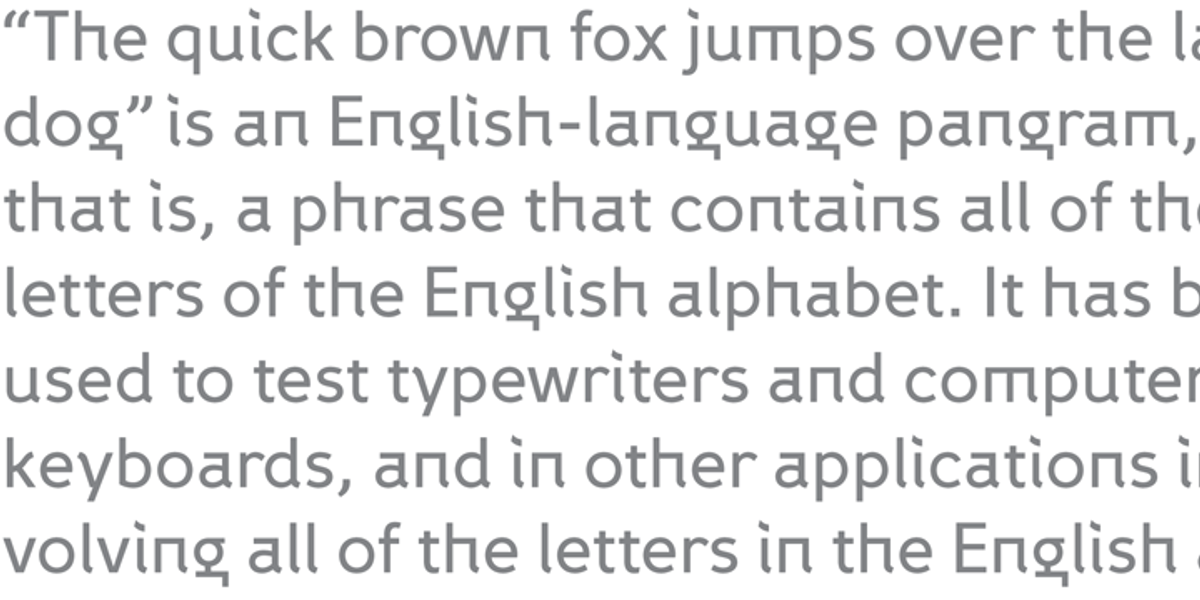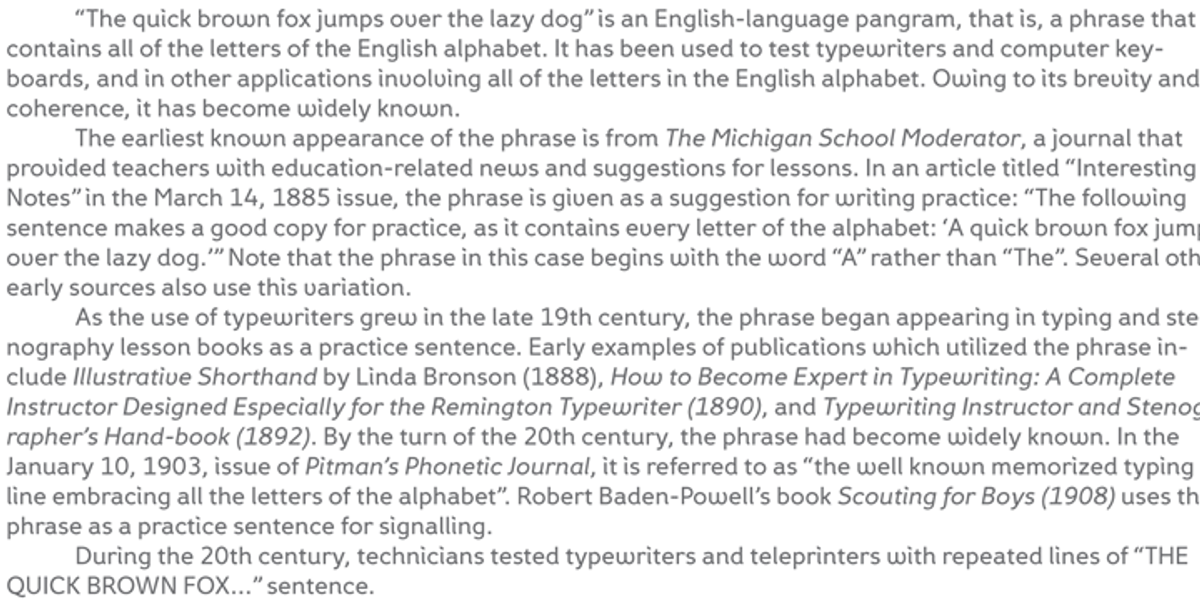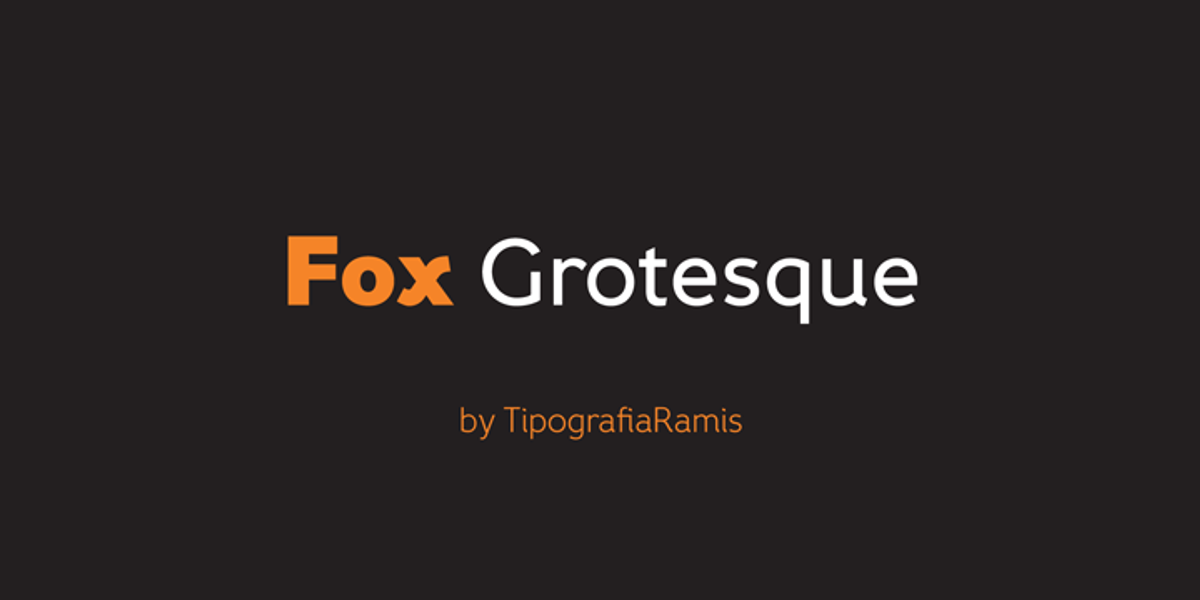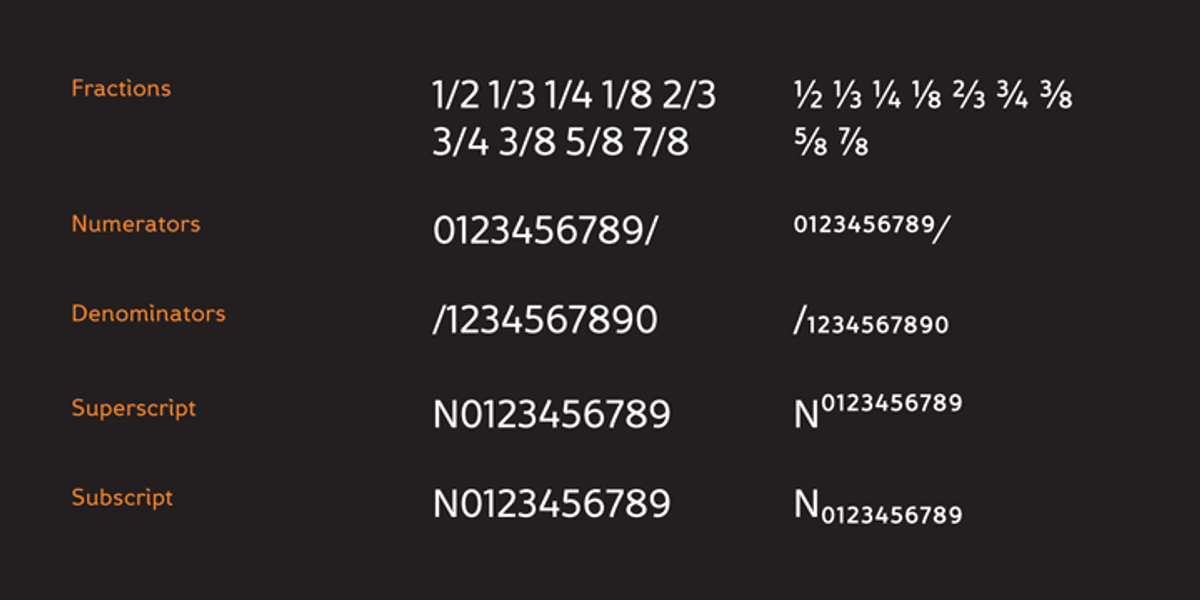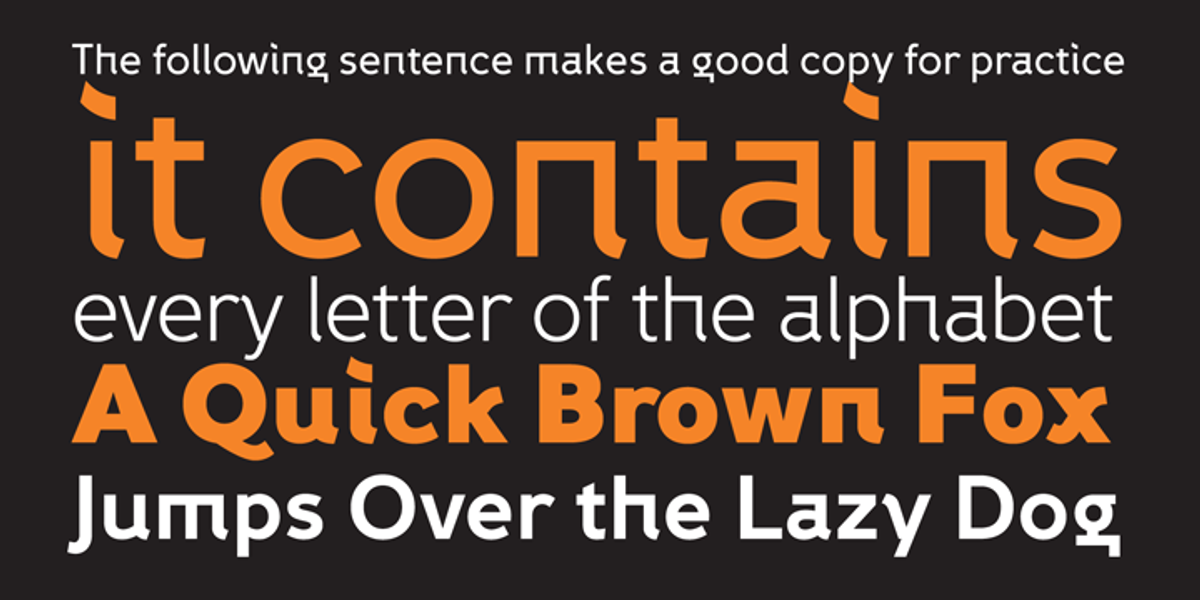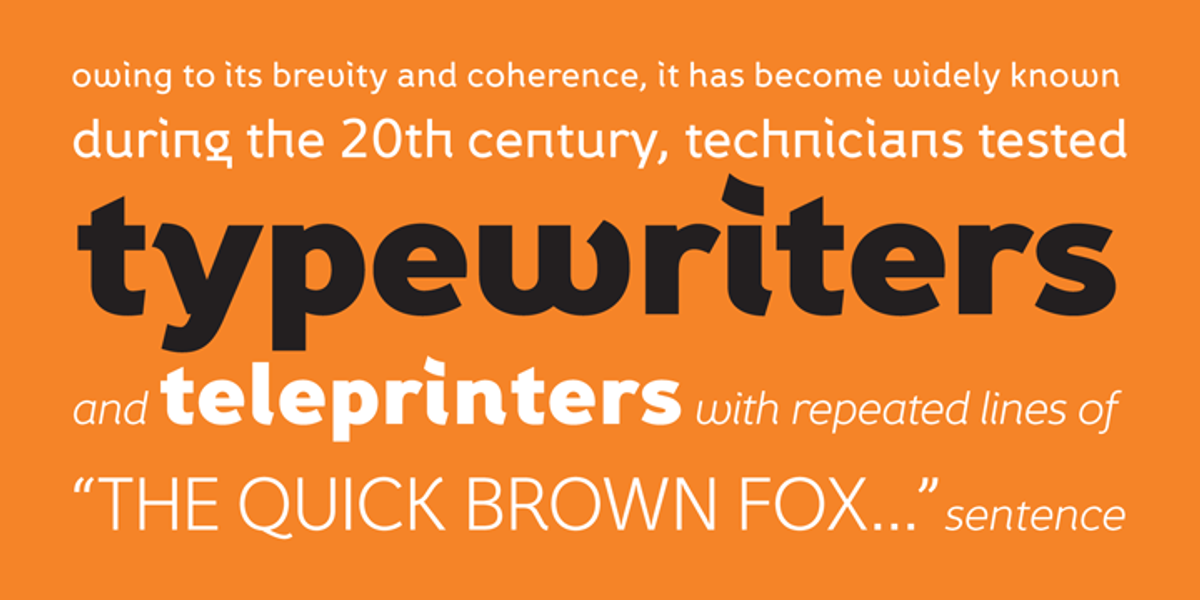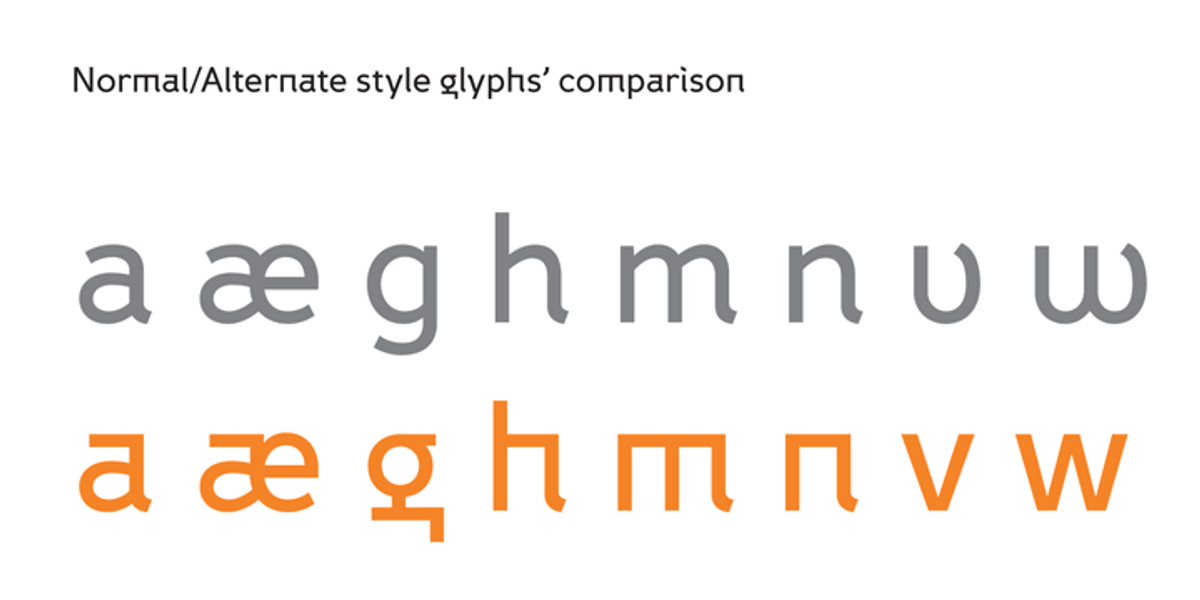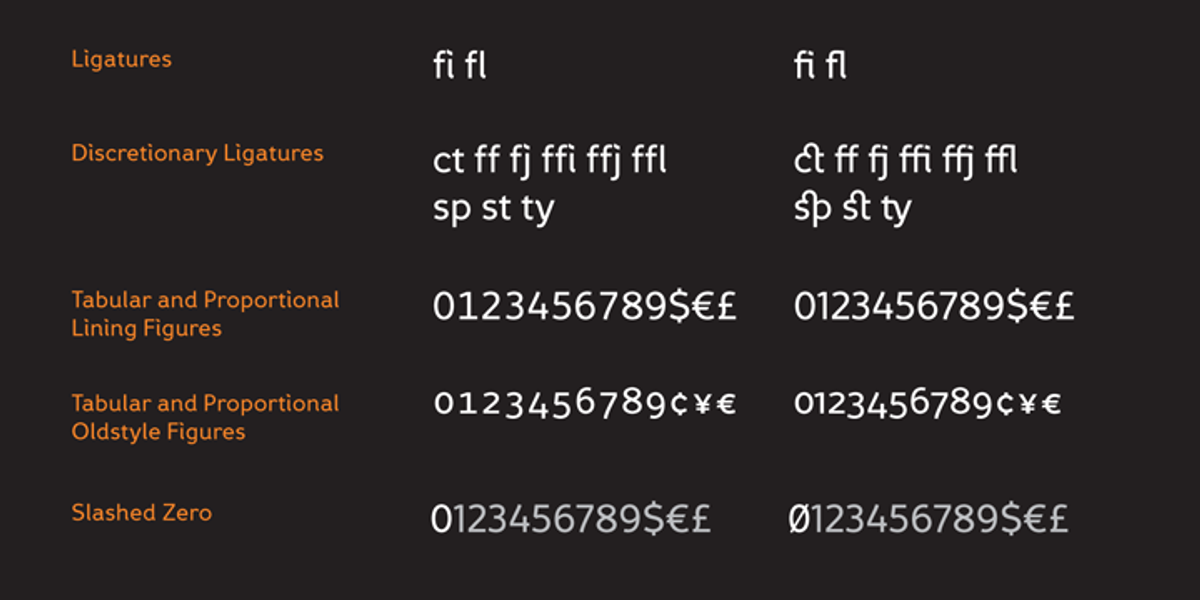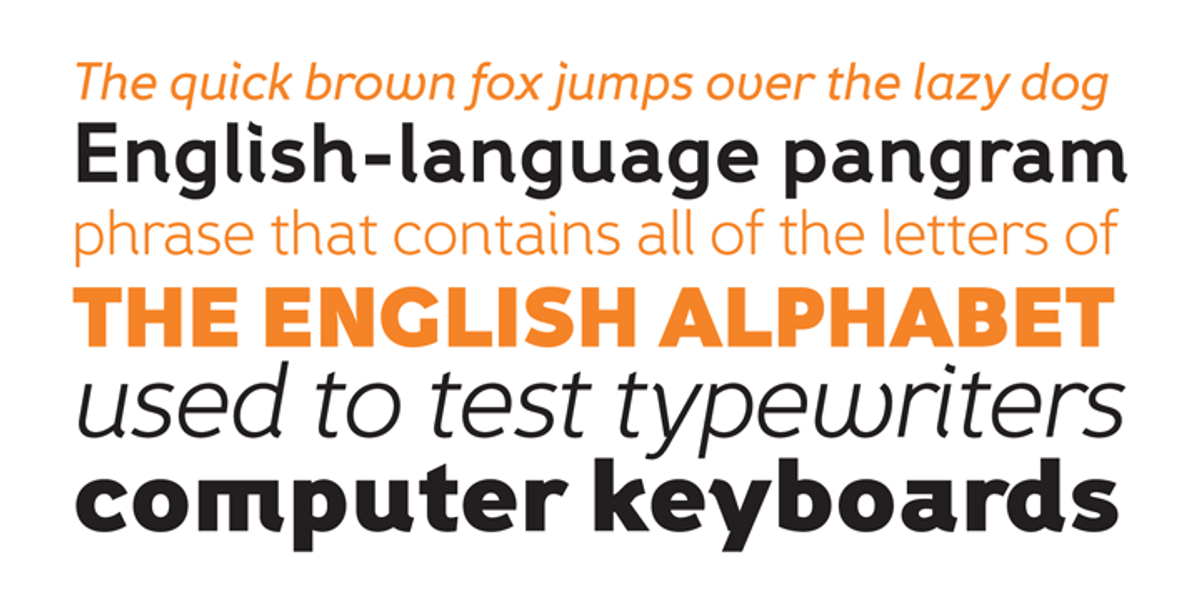
Fox Grotesque
Fox Grotesque is a humanist sans serif font designed for versatility. It excels in both display sizes, such as posters and headlines, and smaller text sizes suitable for editorials and paragraphs. The typeface includes various OpenType features like proportional and tabular figures, oldstyle figures, slashed zero, ligatures, and fractions.